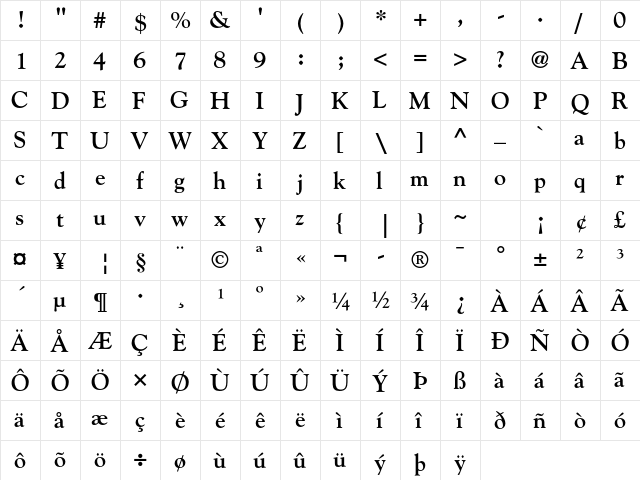
Goudy Oldstyle Std Bold
| Designer | Frederic W. Goudy, Morris Fuller Benton |
Design Context for Goudy Oldstyle Std Typeface
Goudy Oldstyle Std brings classic typographic sensibility to the table — its serifs and measured letterforms reflect centuries of print heritage. The heavy weight commands attention and anchors typographic hierarchies.